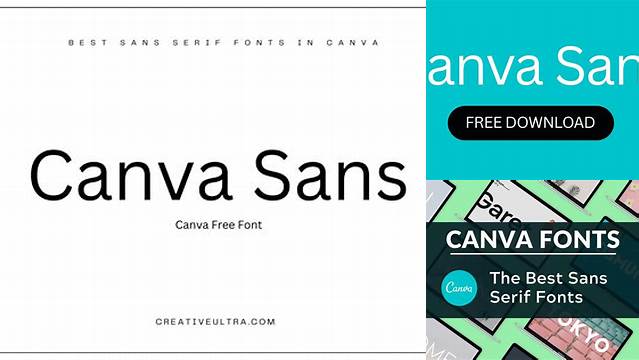
Hey guys! Ever stumbled upon a font that just clicks? Canvasans might be that font for you! It's sleek, versatile, and perfect for a ton of projects. This guide will walk you through everything you need to know about Canvasans font, from finding a free download in TTF format to getting the most out of it in your designs. Let's dive in!
1. What is Canvasans Font?
Canvasans isn't just another typeface; it's a carefully crafted font designed for readability and visual appeal. Its clean lines and balanced letterforms make it suitable for a wide array of applications, including branding, web design, and print materials. The versatility of Canvasans font stems from its neutral yet modern aesthetic, which allows it to seamlessly integrate into different design styles without overpowering the overall composition. Think of it as the reliable friend in your font library – always ready to step up and deliver a polished look. Whether you are working on a minimalist corporate identity or a vibrant social media campaign, Canvasans provides a professional touch that enhances the visual communication. This adaptability makes it an excellent choice for designers who need a font that can handle various projects with consistent quality and style.
9. Canvasans Font for Logo Design
30. Canvasans Font: Showcasing Your Creativity
Ultimately, Canvasans font is a tool to help you express your creativity. Don't be afraid to experiment with different styles, colors, and effects to see what you can create. Use the font to tell a story, convey a message, and evoke emotions. Let your imagination run wild, and use Canvasans font to bring your creative visions to life. Whether you're designing a logo, a website, or a poster, Canvasans can help you create something truly unique and memorable. So go out there and start creating!